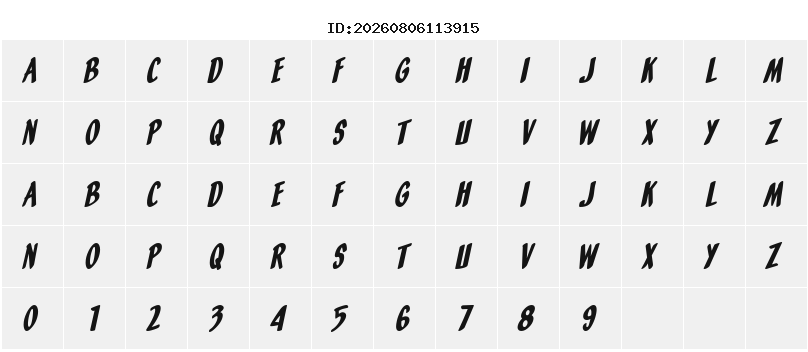
Orange Fizz Preview
• Font Name: Orange Fizz
• Full Font Name: Orange Fizz Italic
About Orange Fizz.ttf
Orange Fizz.ttf is a modern, elegant sans-serif font designed for ultimate readability and visual harmony. Perfect for branding, headlines, web design, and print materials.